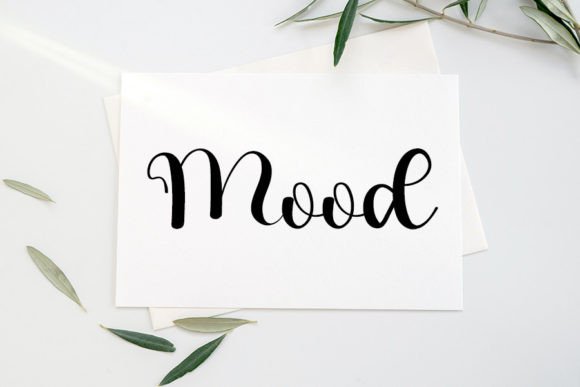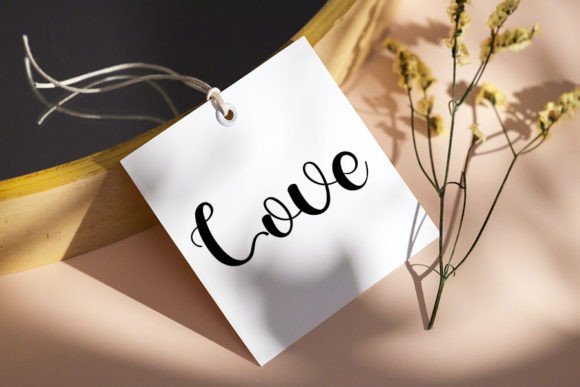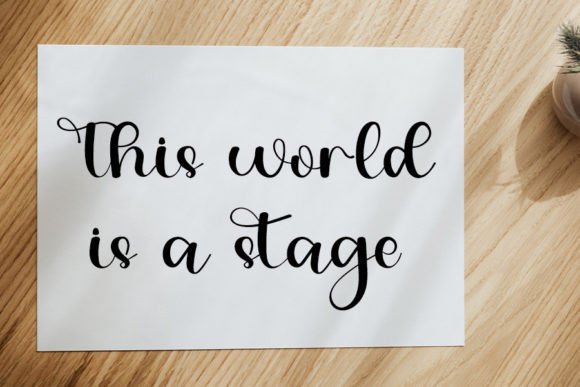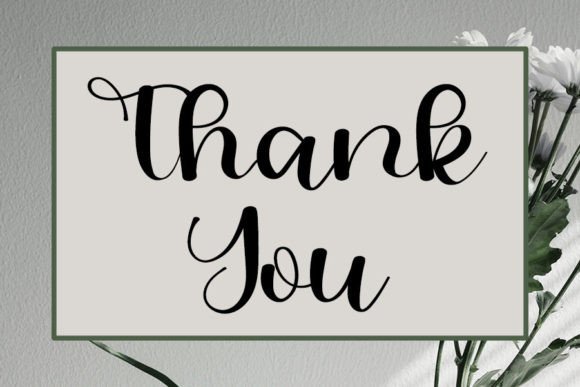
Add Elegance and Style with Trending Font
Trending Font is a neat and beautiful handwritten typeface designed to bring an elegant touch to your creative projects. Its distinct and timeless style makes it a perfect choice for a wide range of designs. Whether you are working on invitations, branding, or social media graphics, Trending Font adds a refined and polished look.
Furthermore, the font’s graceful strokes and clean shapes give your work a classic yet modern feel that truly stands out.
Versatile Uses for Trending Font
Trending Font fits beautifully in many different projects, such as:
Wedding and event invitations
Brand logos and corporate identity
Greeting cards and thank-you notes
Social media posts and digital content
Posters, flyers, and promotional materials
Product packaging and labels
Thanks to its elegant handwritten style, Trending Font adds warmth and sophistication to any design.
It also features balanced kerning and clear spacing to keep your text readable and visually appealing at different sizes.